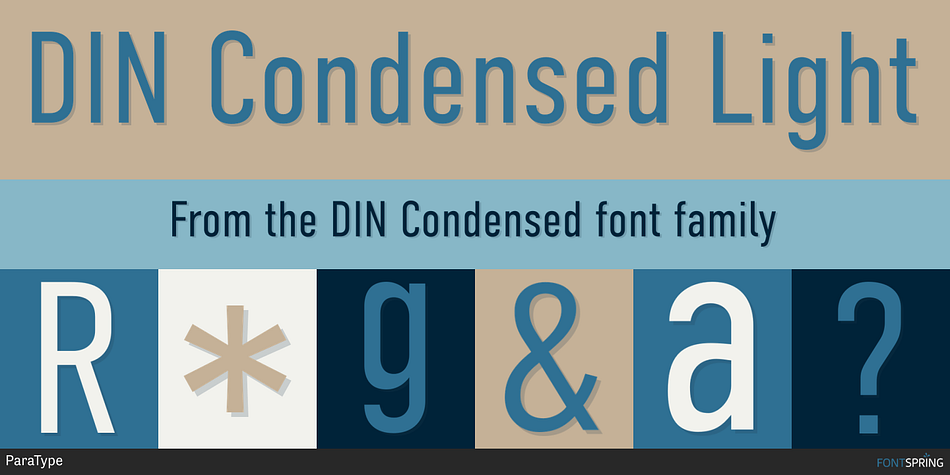
DIN Condensed Light
Designed by Tagir Safayev, Manvel Shmavonyan and Isabella Chaeva, DIN Condensed is a display sans and sans serif font family. This typeface has four styles and was published by ParaType.
If you are looking for a versatile typeface for website menus, app interfaces, or any design where space efficiency is a priority, DIN Condensed is an excellent choice.
DIN Condensed is a narrow display typeface based on the DIN-standard typefaces—German industrial sans serifs from the early 20th century. Its clean, simple letterforms ensure readability, while its condensed proportions help conserve space in text, logos, signage, and packaging.
The DIN Condensed family includes three weights (Light, Normal, and Demi Bold), along with a variable font that allows you to fine-tune the thickness of your headlines or text. Additionally, DIN Condensed pairs seamlessly with the open-source Bold style, enhancing its versatility for a wide range of design needs.
The Normal weight was designed by Tagir Safaev for Paratype (ParaGraph) in 1997, inspired by the narrow DIN styles developed by Linotype designers. The Light weight was introduced by Manvel Shmavonyan in 2014, and the Demi Bold weight was added by Isabella Chaeva in 2020.
Primary font characteristics are as follows: